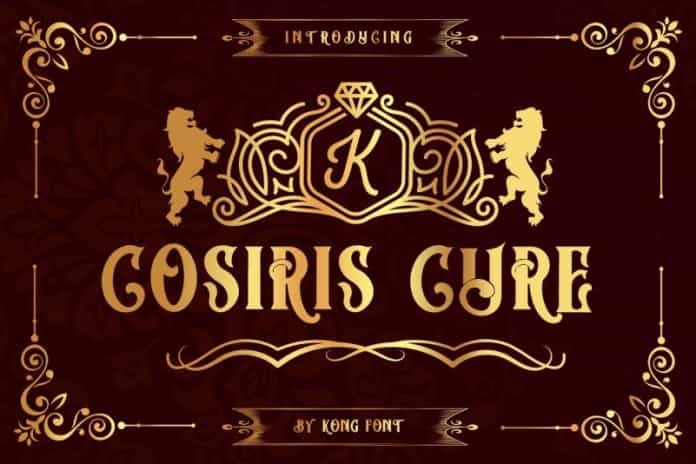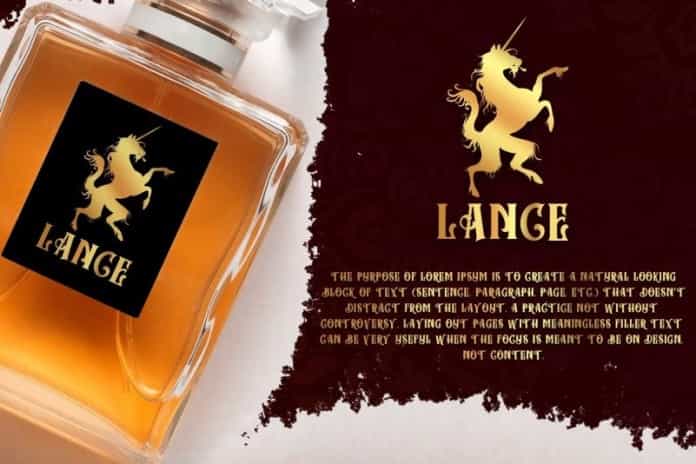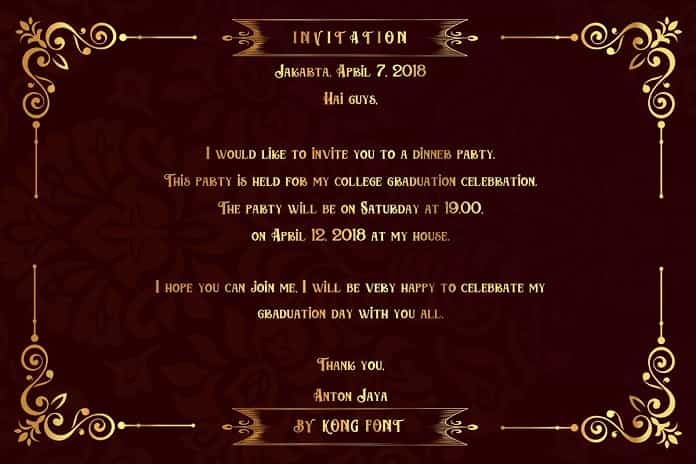
Cosiris Cure is sharp display typeface inspired from the warrior themes to make your brand project stronger. Cosiris Cure is the best for such projects as logos & branding, headlines, posters, signage, advertisements, printed quotes, product packaging ,product designs, label photography watermark special events or anything.